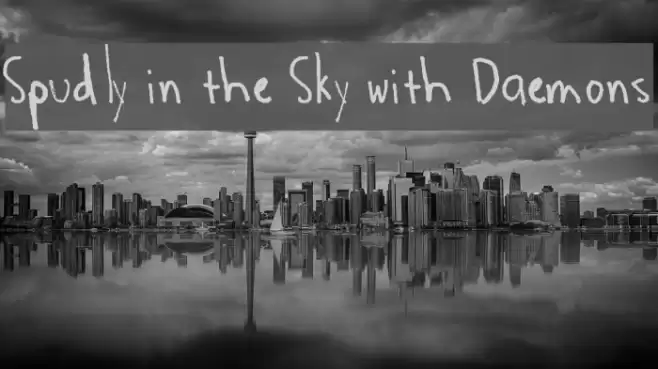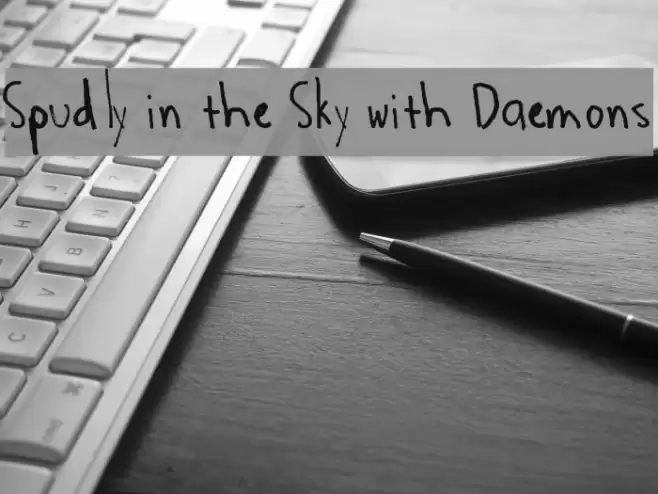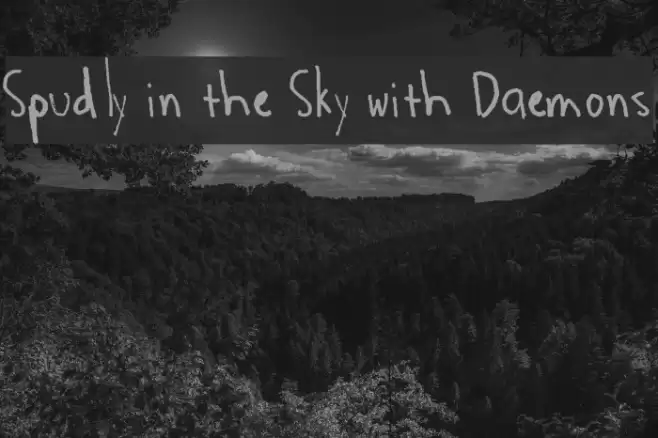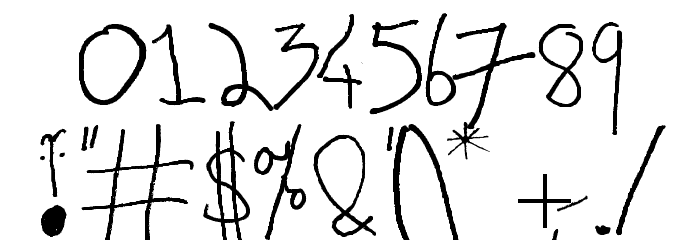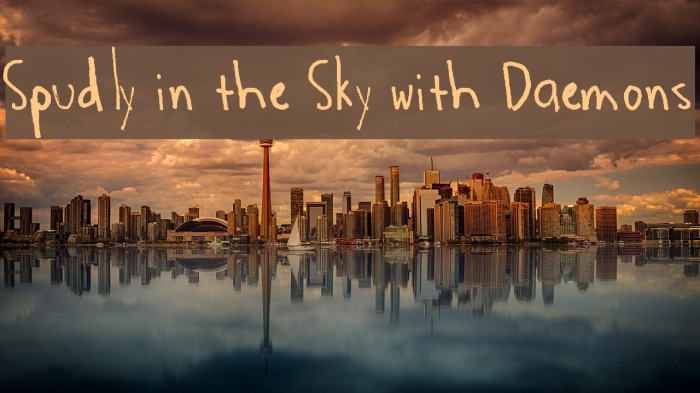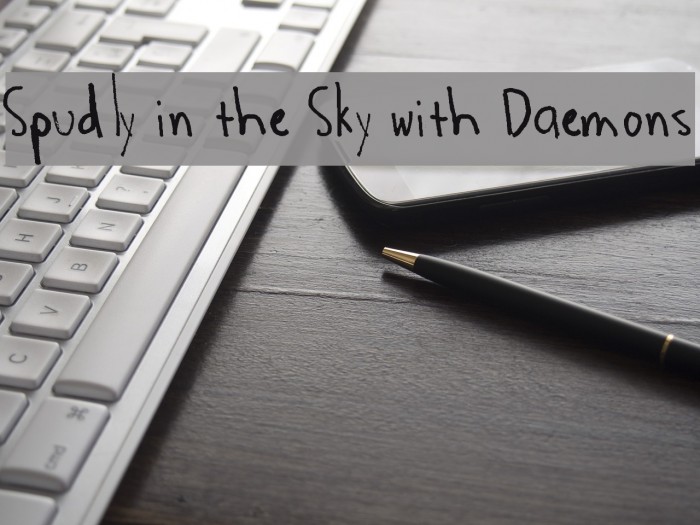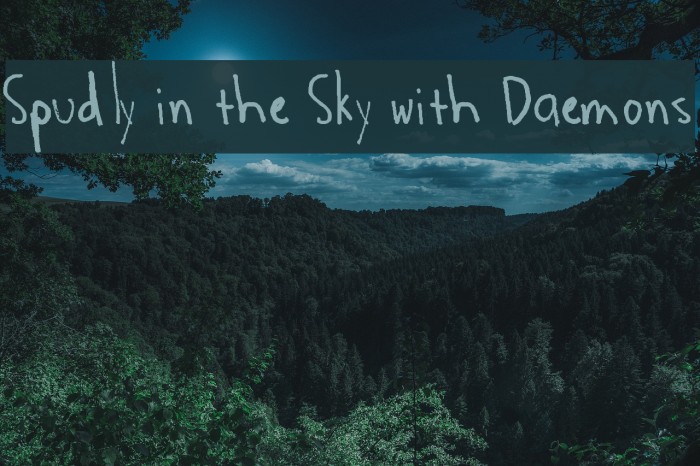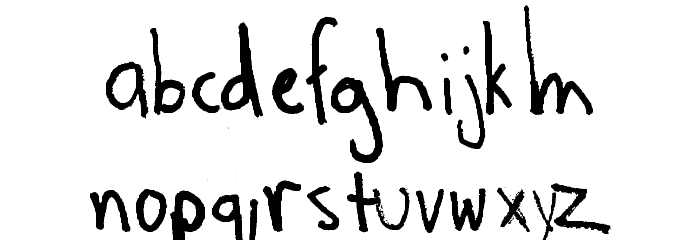
Spudly in the Sky with Daemons Font
Spudly in the Sky with Daemons Description
This font exudes a playful and casual handwritten style, characterized by its irregular and slightly whimsical letterforms. The uppercase letters are bold and uneven, giving a sense of spontaneity and creativity. The lowercase letters maintain this playful aesthetic, with some characters featuring exaggerated loops and curves. Numbers and special characters follow the same informal style, adding to the font's overall charm. The strokes are uneven, contributing to a hand-drawn appearance, while the spacing between characters is varied, enhancing the casual feel. This font is perfect for projects that require a personal touch or a fun, informal vibe.
A playful, casual handwritten font with irregular, whimsical letterforms from Uncategorized fonts.
- Proposed Projects: Ideal for children's books, greeting cards, personal blogs, or any project needing a fun, informal touch.
- Character Spacing: Varied
- Overall Style: Casual, Playful
- Use Case: Headlines, Informal text, Creative projects